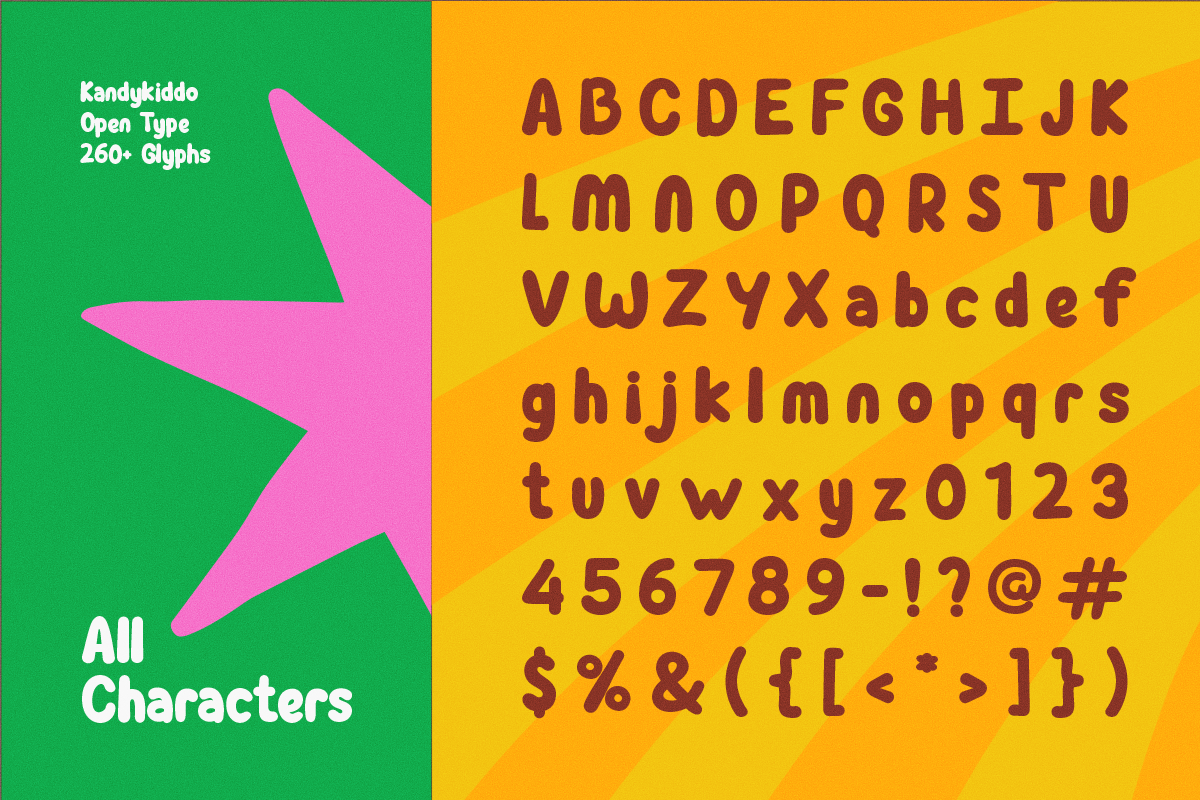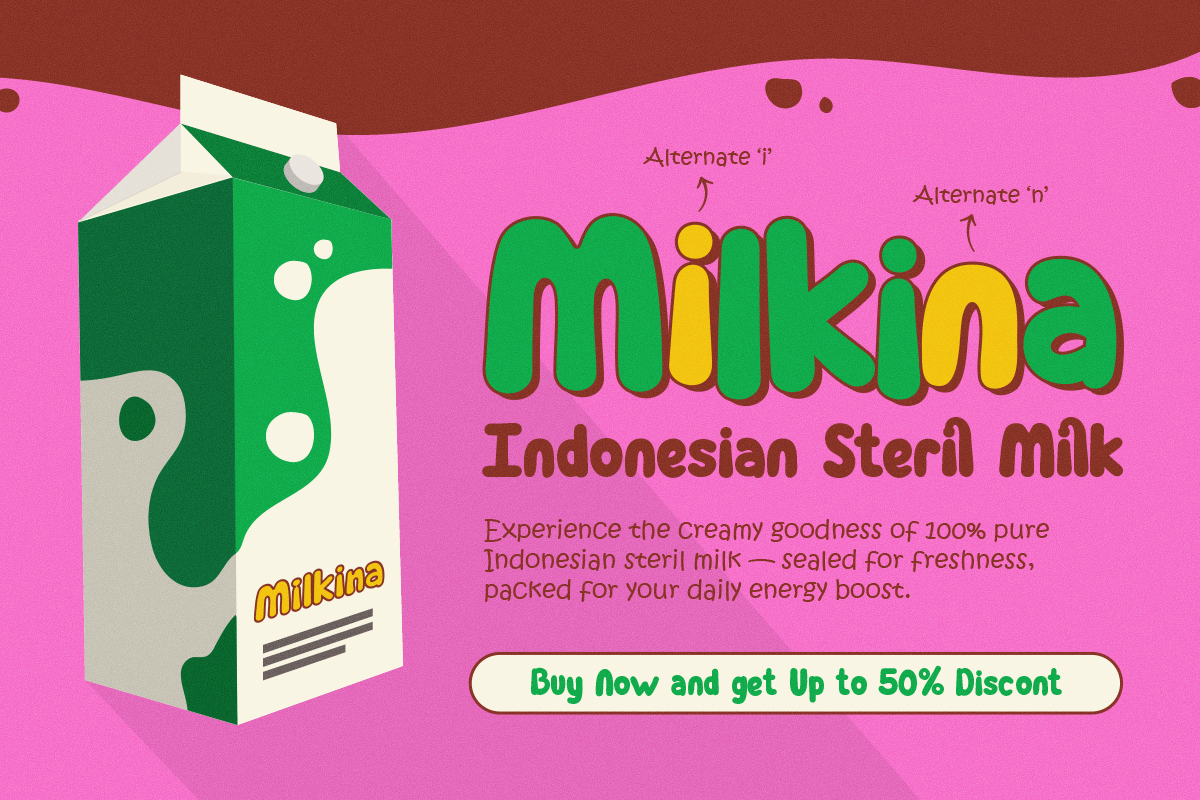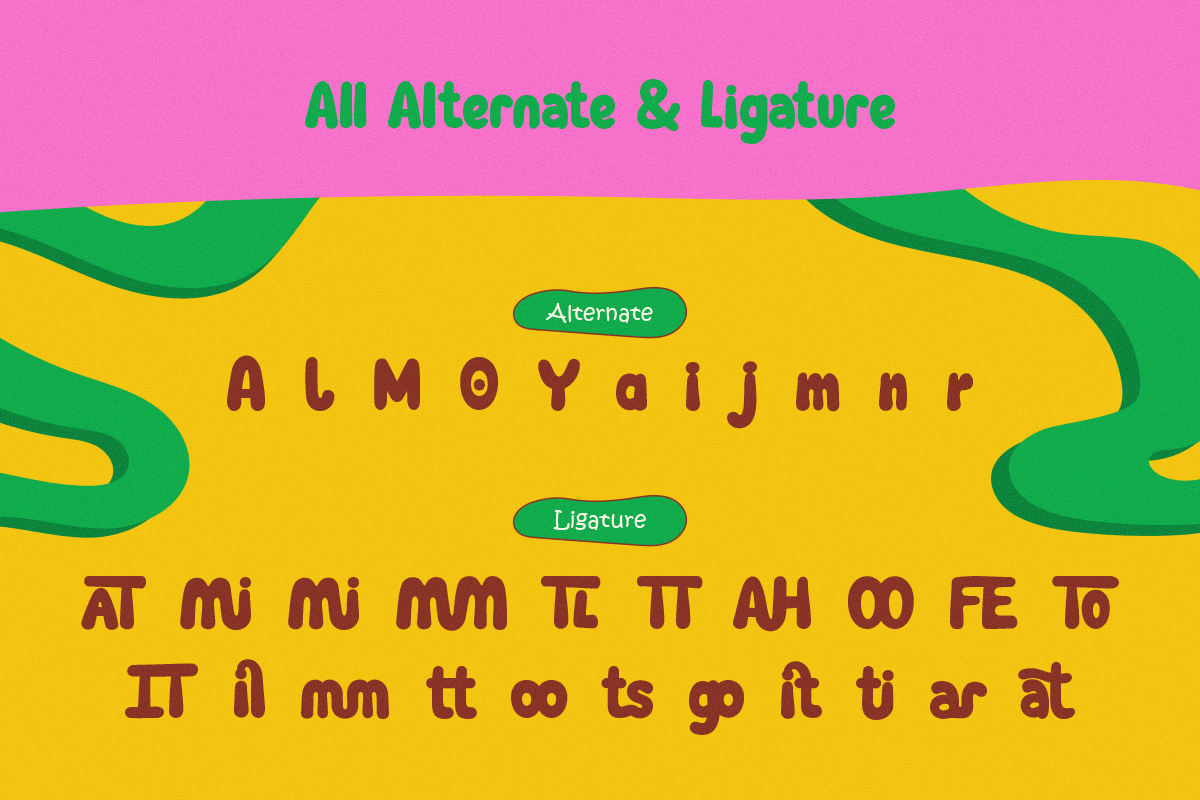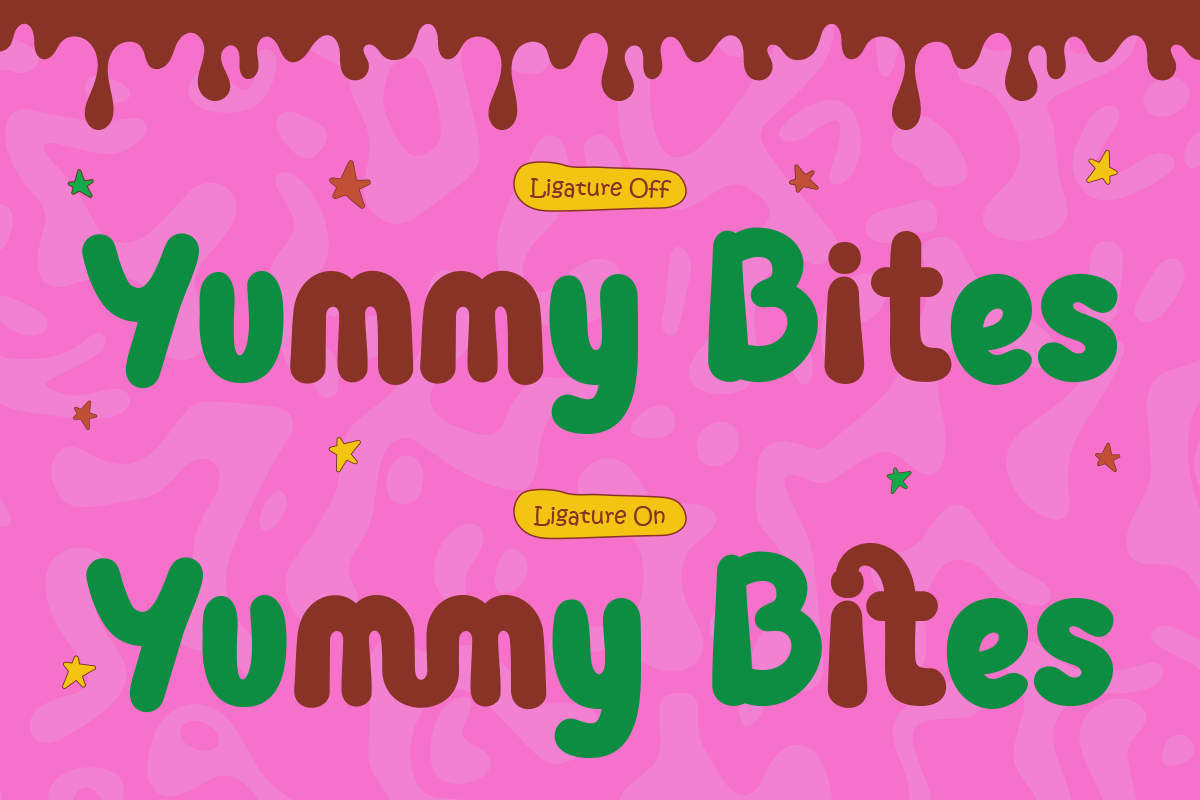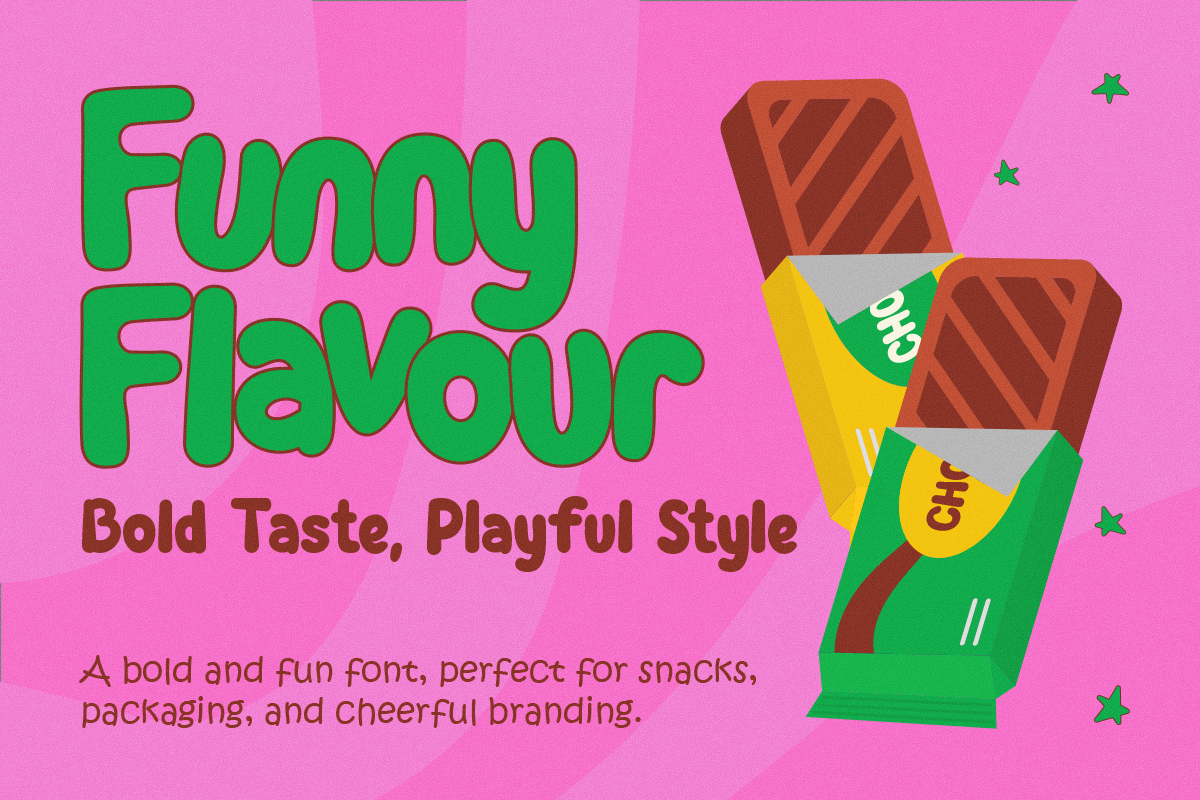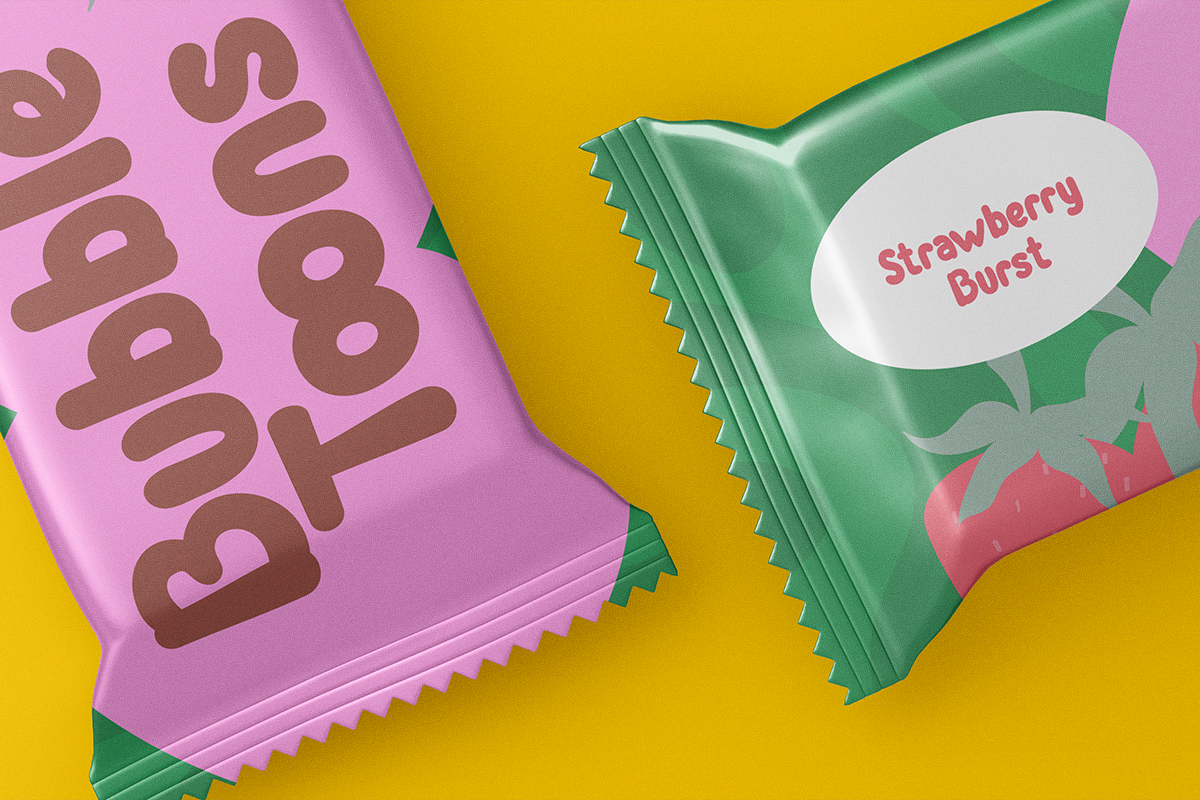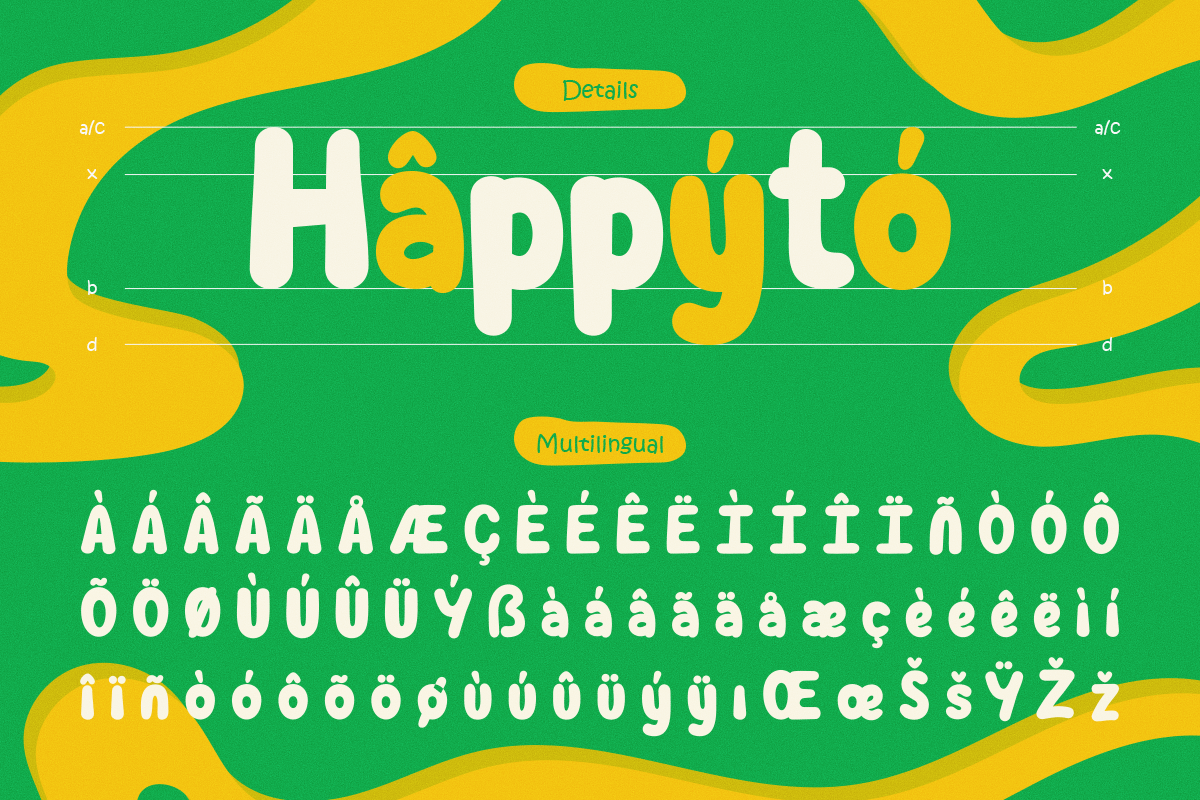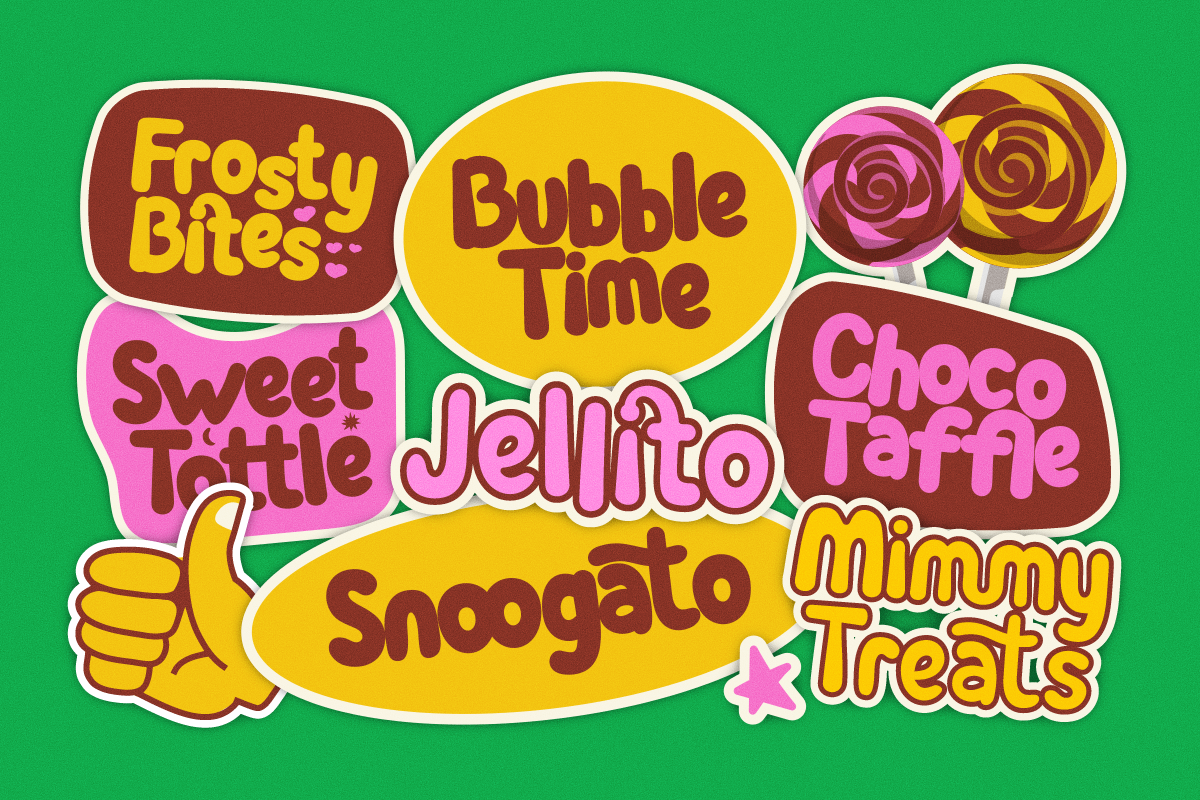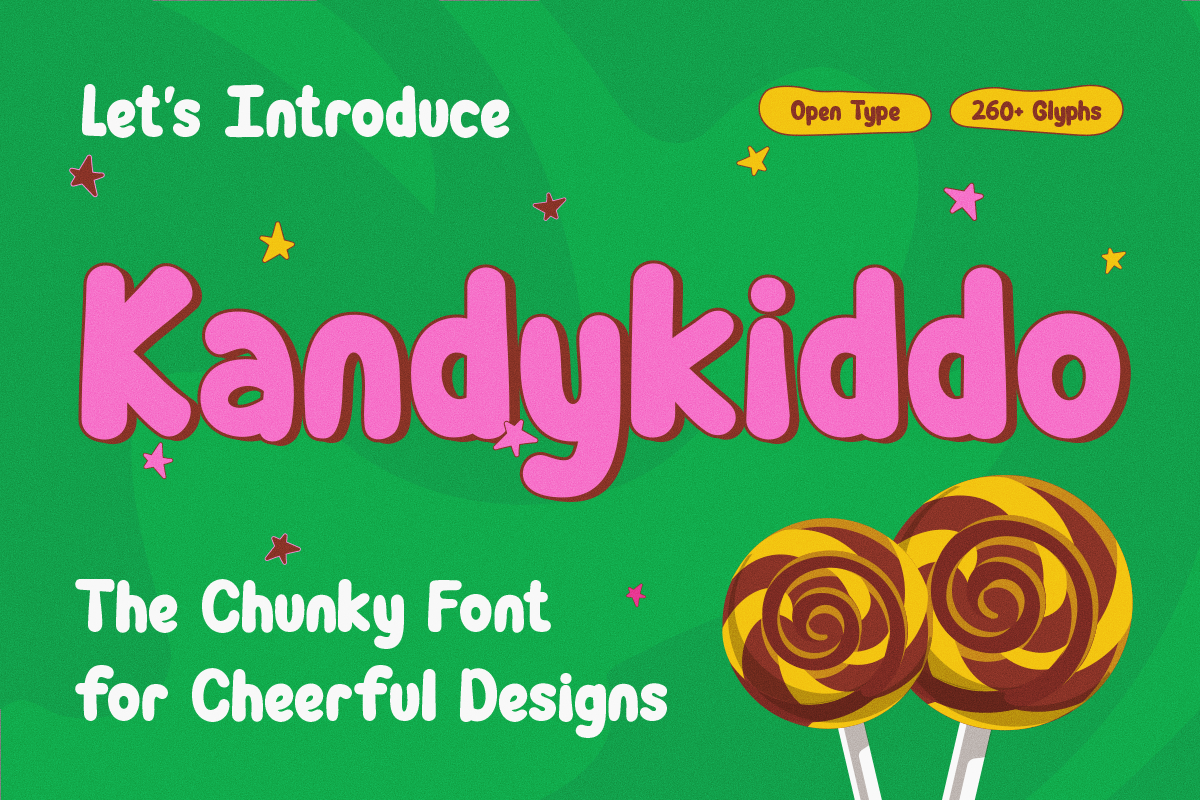
Kandykiddo - Playful Chunky Font
KandyKiddo is a bold and playful chunky font designed to bring a high-energy "sugar rush" to your creative projects. Inspired by retro candy packaging and puffy 90s street style, its thick, inflated curves and soft edges make every letter feel bouncy and full of life. It is the perfect choice for eye-catching logos, streetwear branding, and vibrant posters where you want your message to stand out with a fun, nostalgic, and unapologetically loud personality.
- Numerals & punctuation